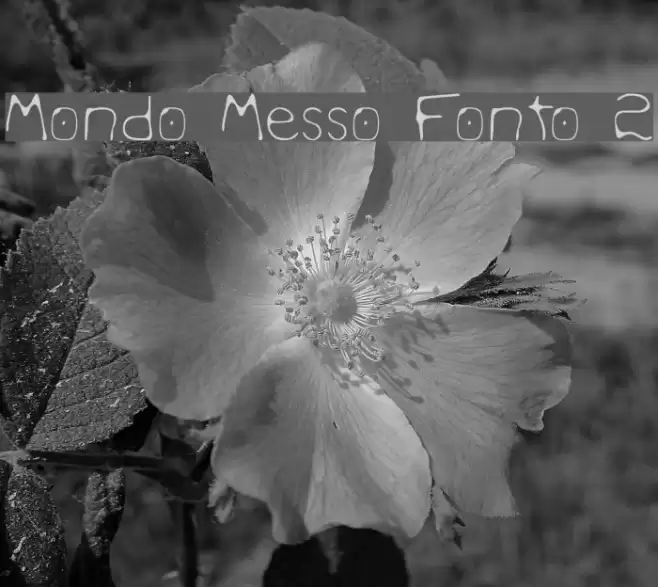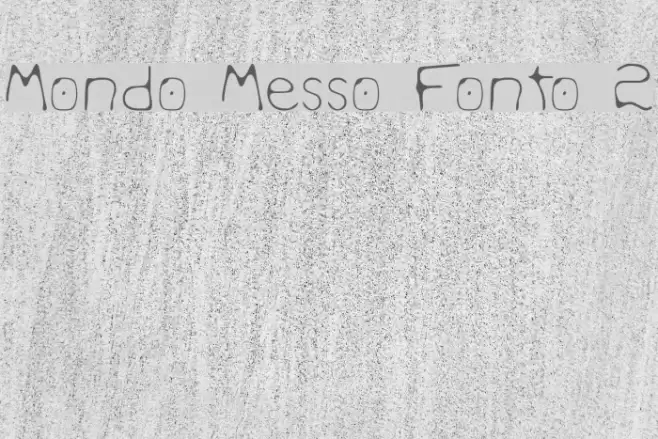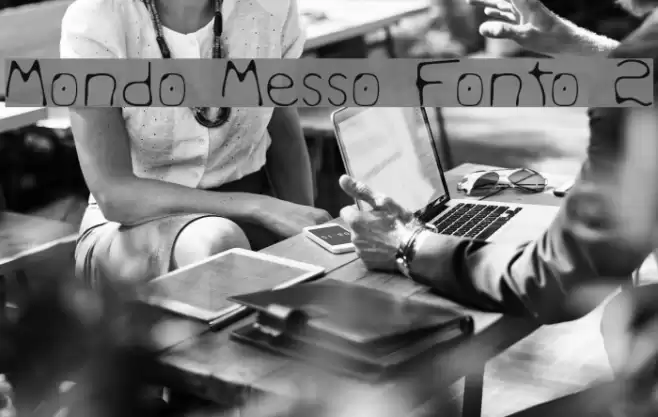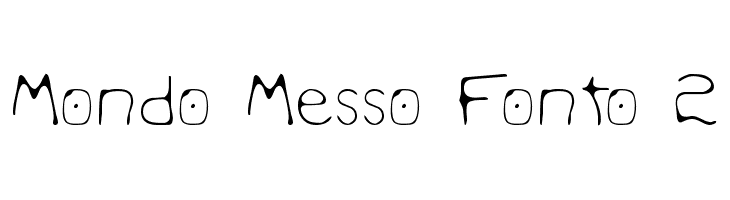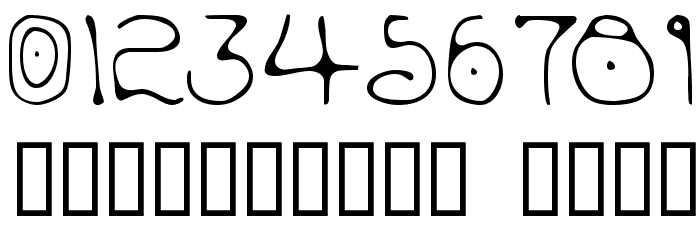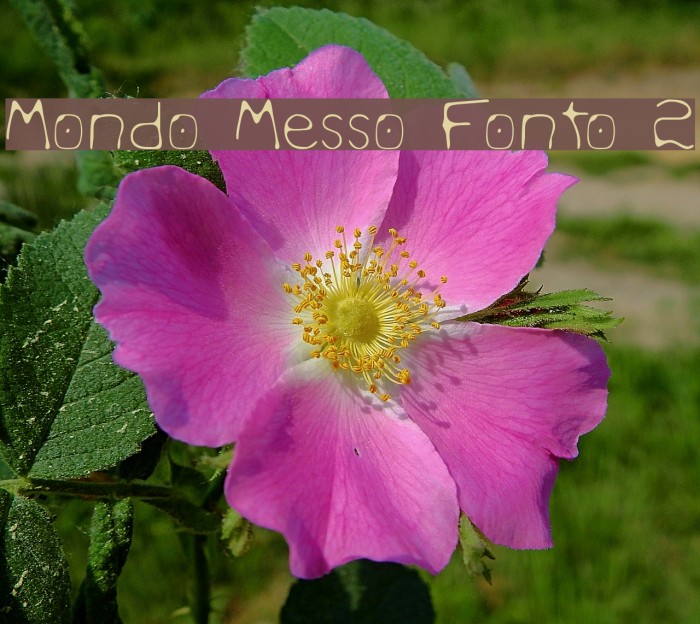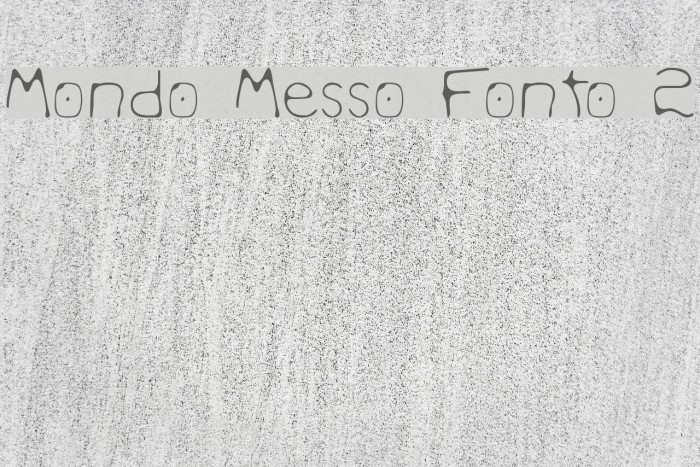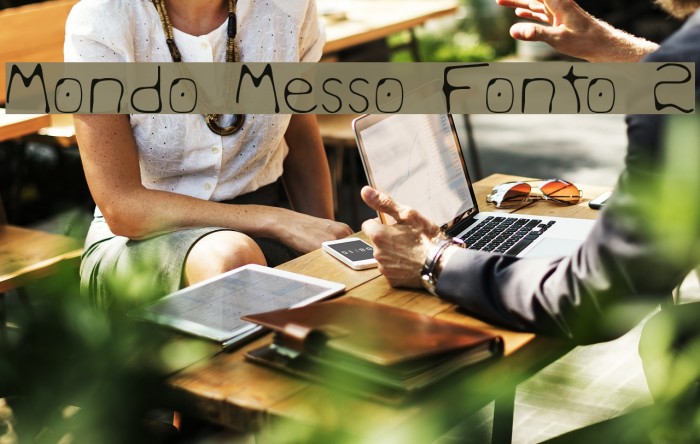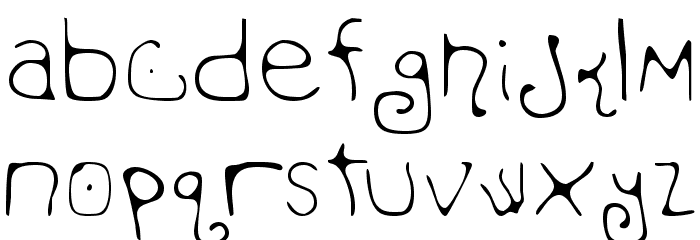
Mondo Messo Fonto 2 Font
Mondo Messo Fonto 2 Description
This font exhibits a playful and whimsical design, characterized by its irregular and organic shapes. The letters have a hand-drawn quality, with varying stroke thickness that adds to its quirky and artistic appeal. The uppercase letters are bold and distinctive, while the lowercase letters maintain a consistent style with unique flourishes. The numbers follow the same playful theme, making them stand out with their unconventional forms. Special characters are creatively integrated, adding to the font's overall charm. This font is ideal for projects that require a touch of creativity and individuality.
A whimsical, hand-drawn font with playful and irregular shapes from Crazy fonts.
- Proposed Projects: Ideal for children's books, creative posters, artistic branding, and playful invitations.
- Overall Style: Artistic, Whimsical
- Use Case: Headlines, Logos, Creative projects